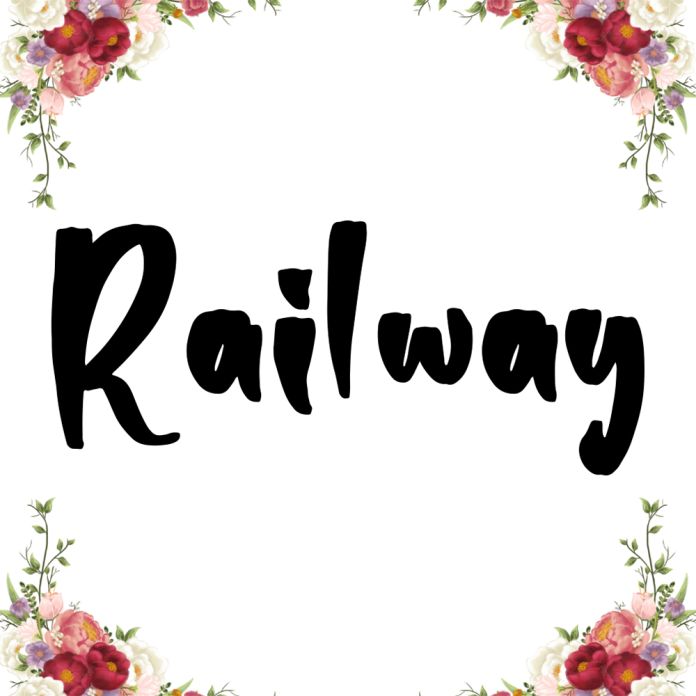
Railway is a delicate, elegant, and flowing monoline script font. It has beautiful and well-balanced characters and as a result, it matches a wide pool of designs.